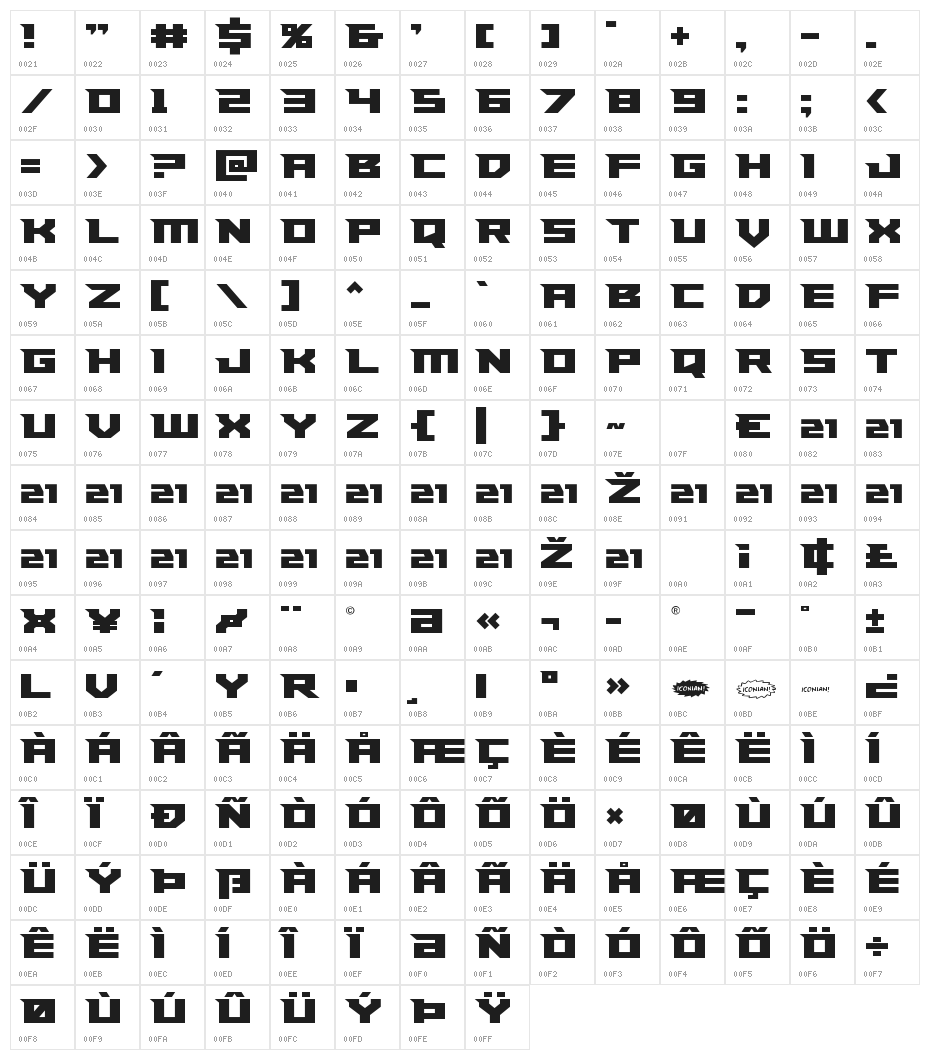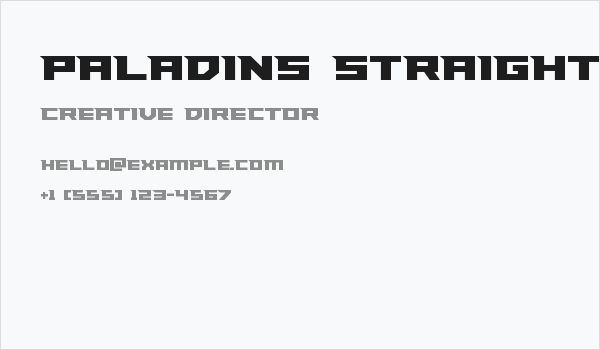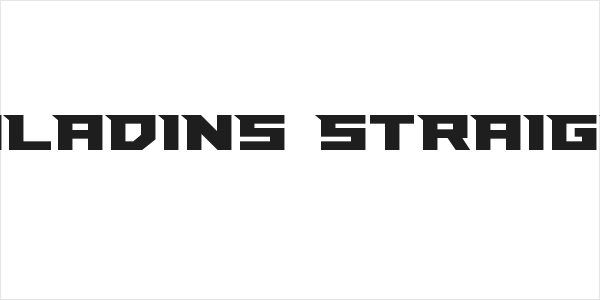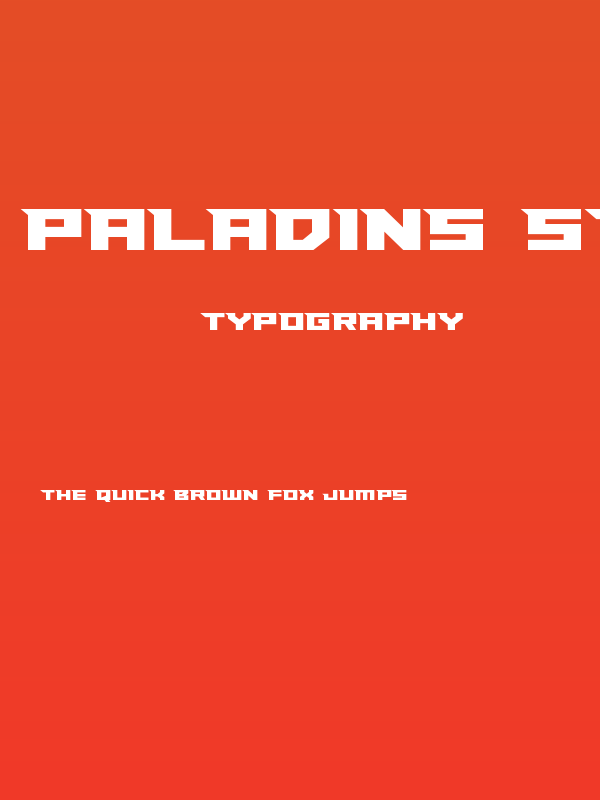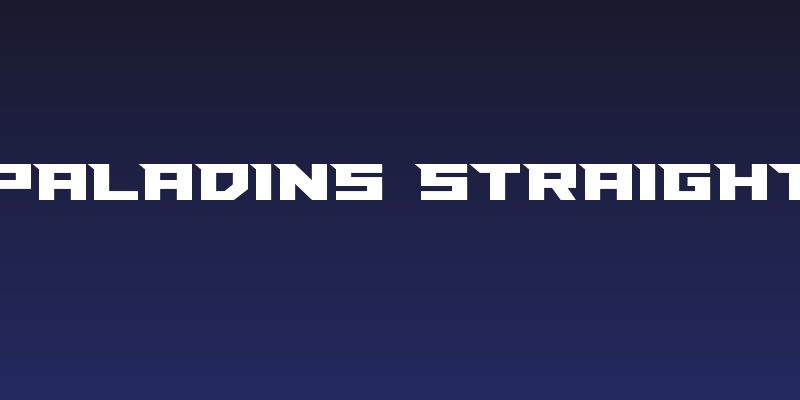
Paladins Straight Font
Paladins Straight Description
This font features a bold, geometric design with sharp angles and a futuristic aesthetic. The uppercase letters are uniform in height, creating a cohesive and structured appearance. The characters are wide, with a consistent stroke width that gives the font a strong and impactful presence. The numbers and special characters maintain the same bold style, ensuring a seamless integration with the alphabet. This font is ideal for projects that require a modern and edgy look, such as video game titles, tech branding, or sci-fi themed designs.
Proposed ProjectsIdeal for video game titles, tech branding, sci-fi themed designs, and modern posters.